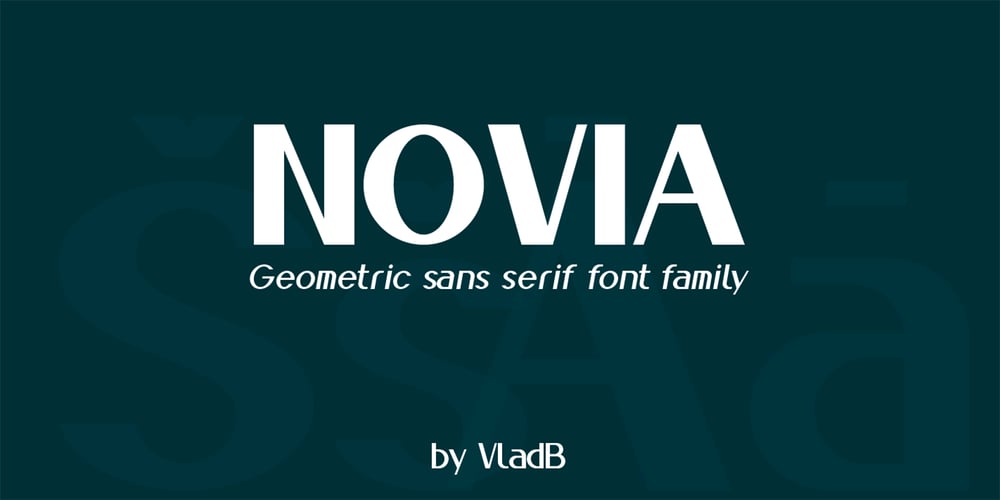
Novia Font Family was designed by Volodymyr Berla and published by VladB. Novia contains 6 styles and family package options. Novia is a modern sans serif geometric font, includes upper and lower case characters, Latin, Cyrillic, Latin Extended symbols and other.